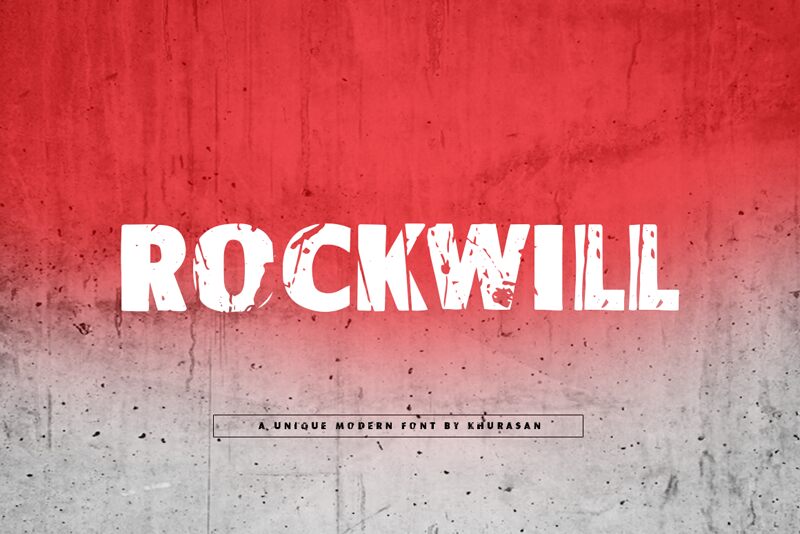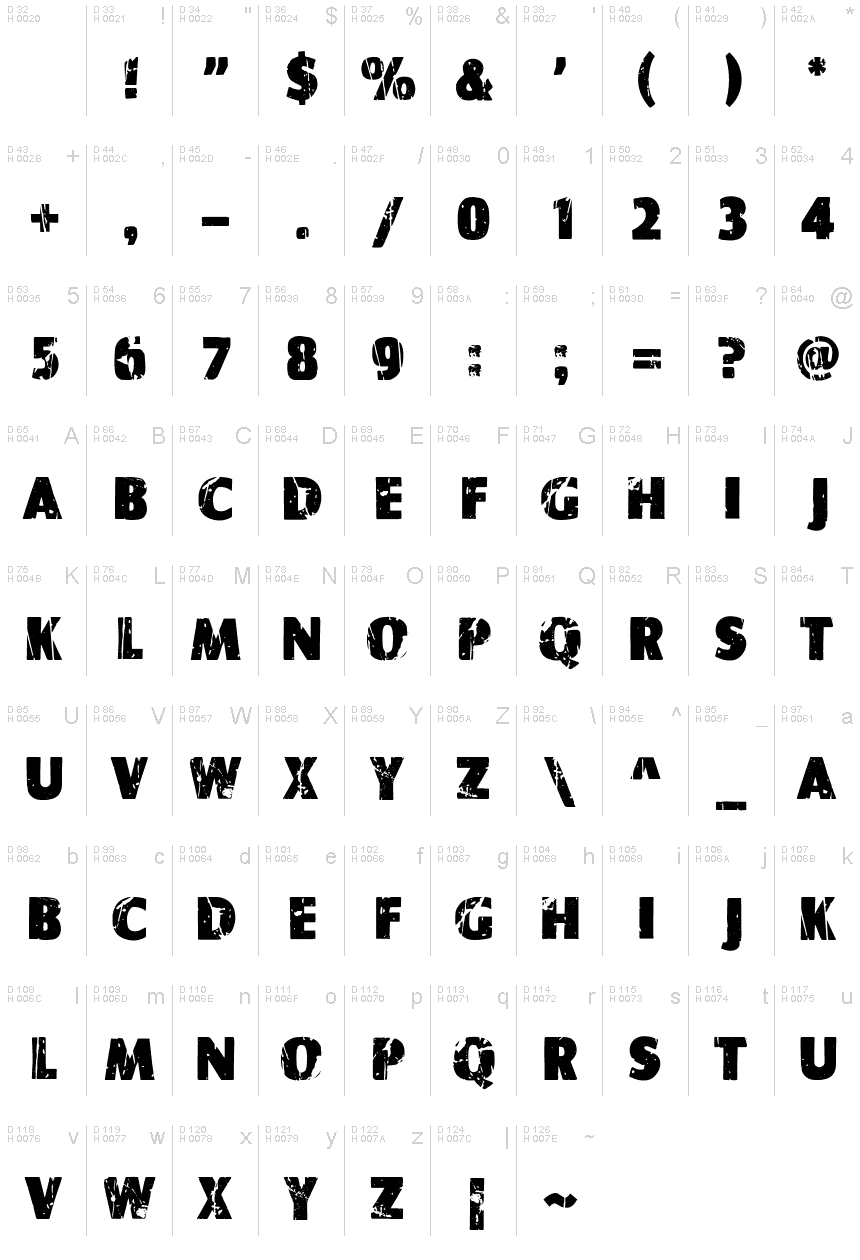
Rockwill
Rockwill, a mesmerizing display font by Khurasan, brings a raw and edgy touch to your projects. With its eroded style, this extra-bold typeface adds a vintage and weathered charm to any design.
Perfect for album covers, movie posters, and tattoo parlors seeking an alternative feel. Its distinct character also makes it an ideal choice for grunge-inspired websites or rebellious fashion brands aiming to stand out from the crowd.
Unleash the power of Rockwill's unique aesthetics and elevate your creative endeavors.